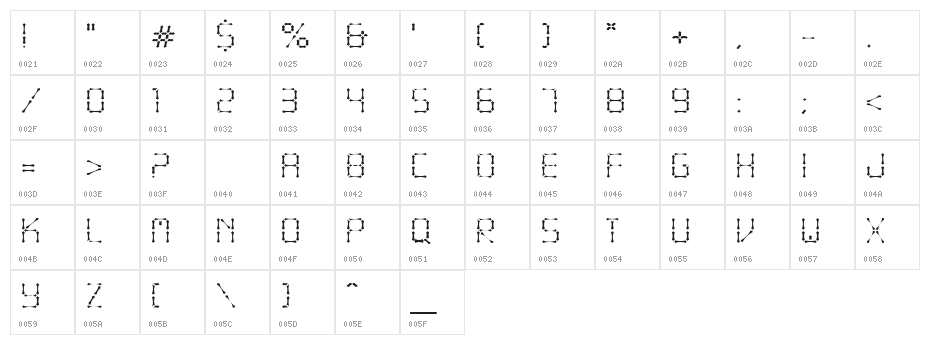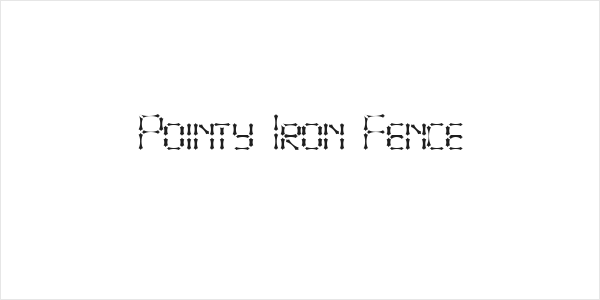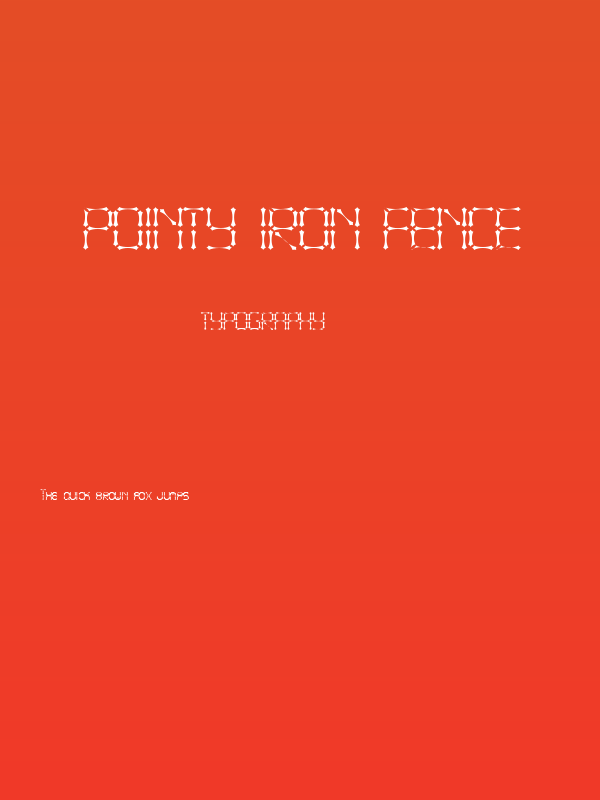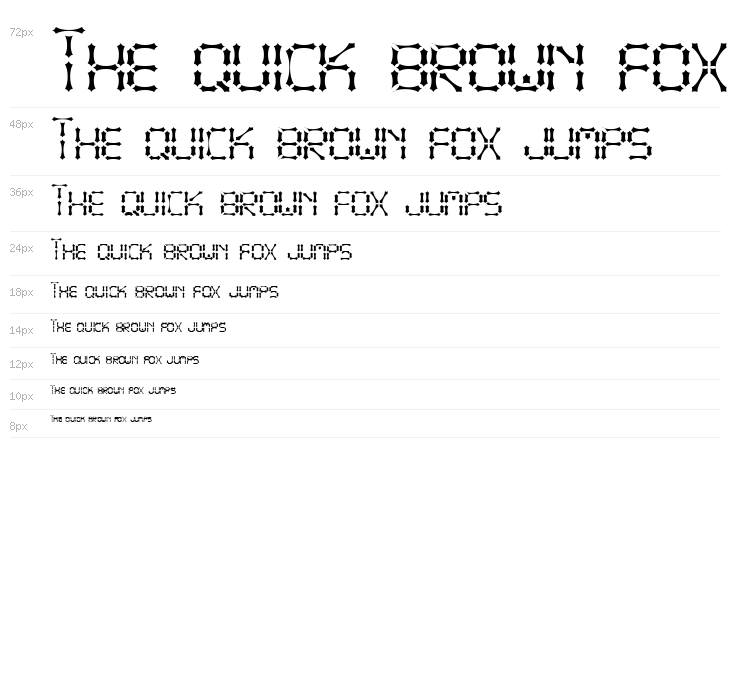
Pointy Iron Fence Font
Pointy Iron Fence Description
This font features a unique and striking design, reminiscent of wrought iron fences with pointed and angular elements. The characters are constructed with a series of interconnected, sharp-edged shapes that give it a bold and decorative appearance. Each letter and number is crafted with precision, creating a sense of strength and durability. The font's intricate design makes it stand out, ideal for projects that require a touch of elegance combined with a hint of industrial flair. The special characters are equally detailed, maintaining the overall aesthetic of the font.